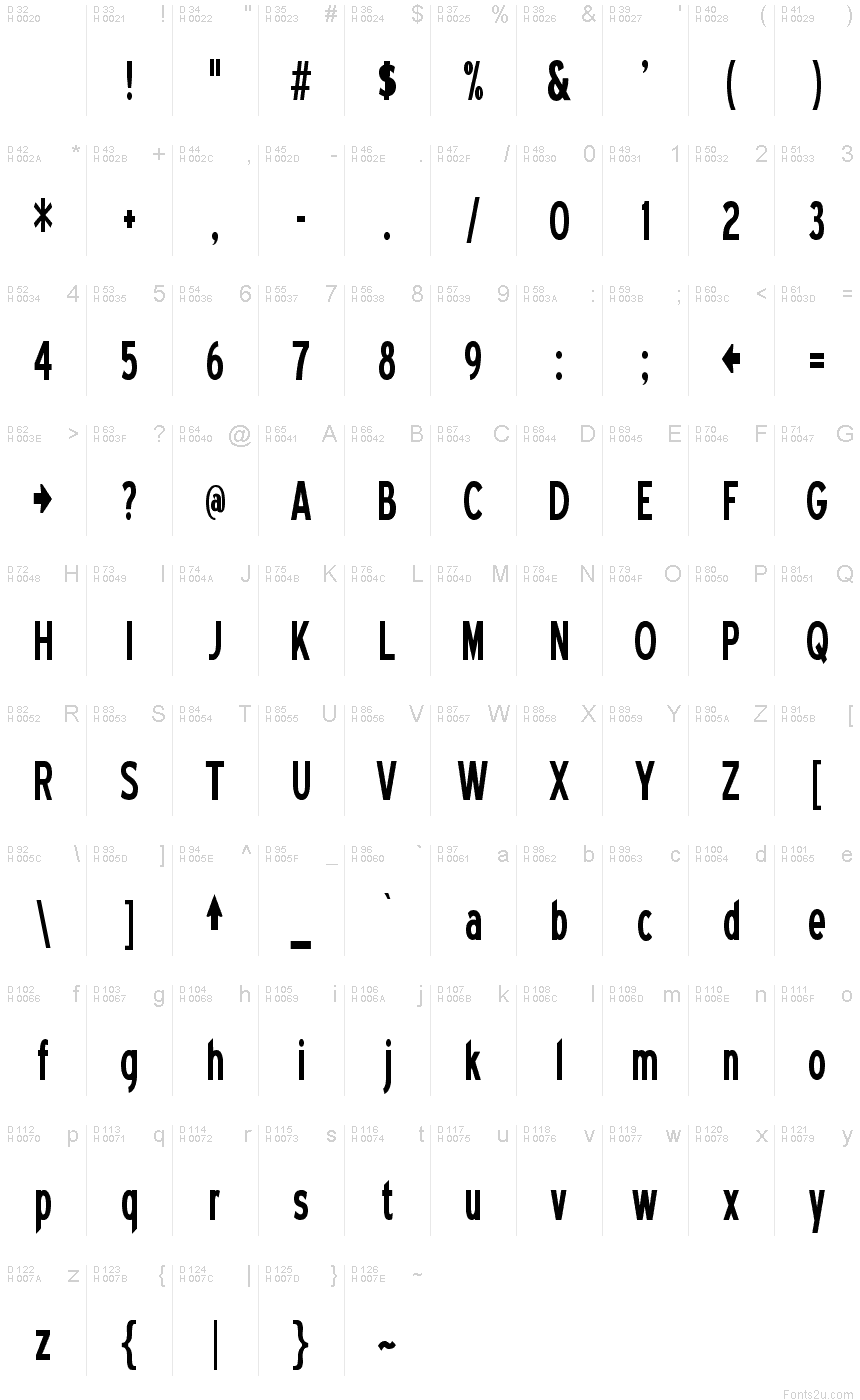
Blue Highway Condensed
Blue Highway Condensed font by Ray Larabie is a free condensed sans serif typeface that clears a common layout jam: fitting bold words into tight spaces without turning them into a gray blur. Its tall, narrow shapes and sturdy strokes feel straight off road signage—clean, no-nonsense, and easy to scan at a glance.
Using Blue Highway Condensed works beautifully for wayfinding systems, UI labels, app headers, posters, tech dashboards, sports graphics, and packaging callouts. Give it a touch of extra letter spacing when setting all-caps so it can breathe, and pair this free font with a calm, wide-bodied sans or a readable serif for longer text.